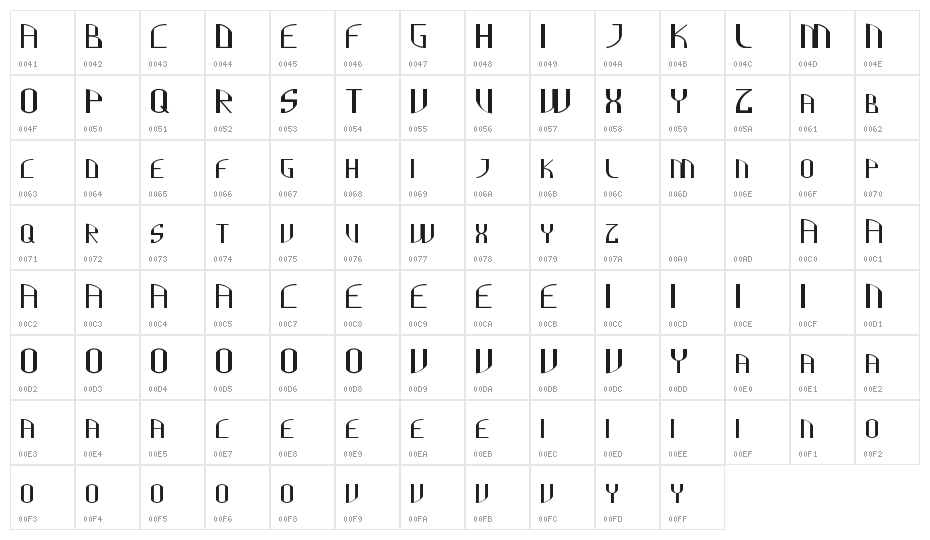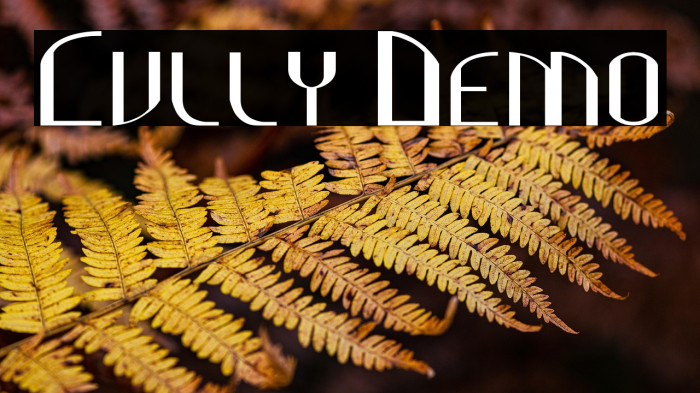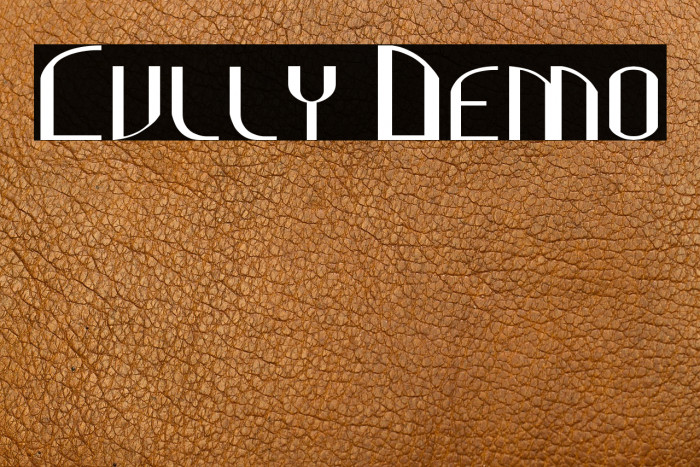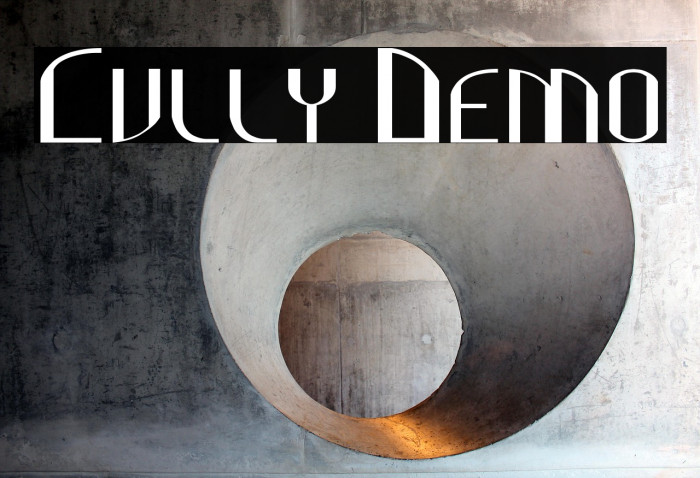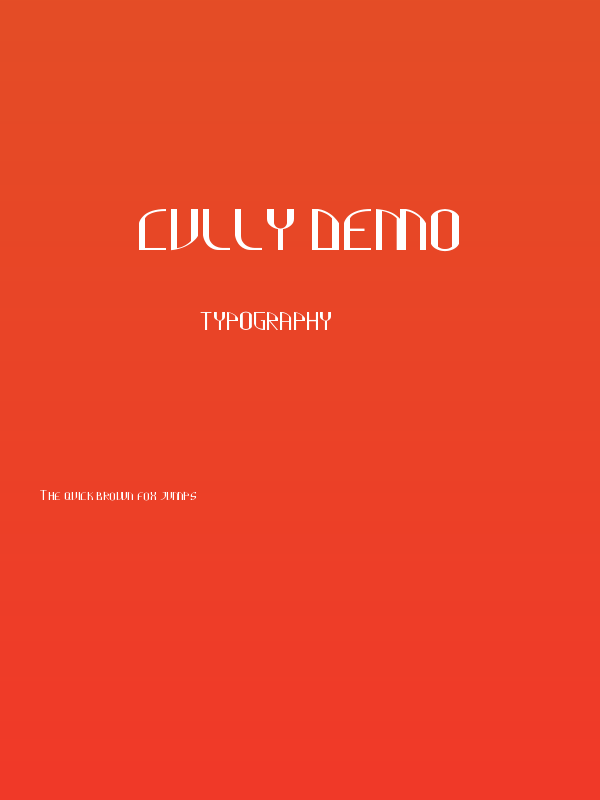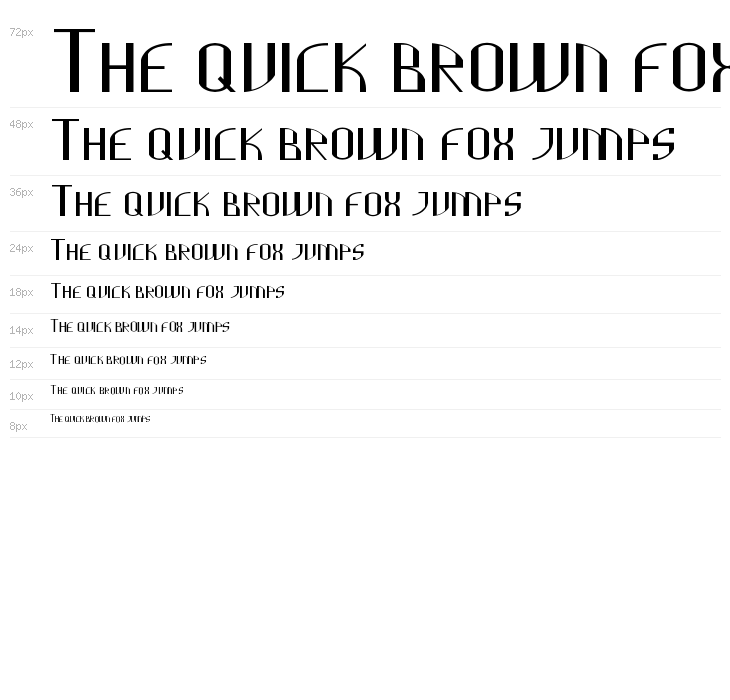
Cully Demo Font
Cully Demo Description
This font exhibits a modern and geometric style with sharp, angular lines and a distinct futuristic appearance. The characters are constructed with a combination of straight and curved edges, creating a dynamic and eye-catching look. The uppercase letters are particularly bold and striking, making them ideal for attention-grabbing headlines or logos. The font's unique design elements, such as the cutouts and varying line thicknesses, add a layer of sophistication and creativity. This font is well-suited for projects that require a contemporary and innovative aesthetic.
| Proposed Projects | Ideal for branding, logos, headlines, posters, and any project requiring a modern, futuristic look. |